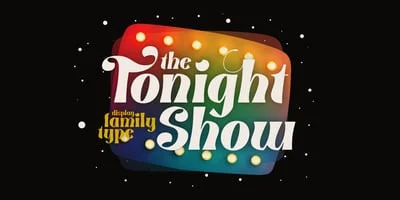
NT Cornelia Font
The NT Cornelia Font is perfect for branding, logos, wedding invitations, and editorial designs.
This font is exciting because its elegant curves and modern serif style create a sophisticated yet approachable aesthetic, making it ideal for luxury and creative projects.
The NT Cornelia Font family includes Regular, Italic, Bold, and Bold Italic variations, offering versatility for diverse design needs.
Looking to elevate your design projects? The NT Cornelia Font is a fantastic choice for designers seeking a blend of elegance and modernity. This serif typeface stands out with its refined letterforms, making it a go-to option for high-end branding and editorial work. Whether you're crafting a logo for a boutique brand or designing a magazine layout, this font delivers a polished look. Its smooth curves and balanced proportions ensure readability while adding a touch of class.
The NT Cornelia Font is also versatile enough for digital and print media. Its clean design enhances user experience on websites, while its distinct style makes printed materials like posters and business cards visually striking. Designers love its ability to pair well with minimalist or bold design elements, offering endless creative possibilities.